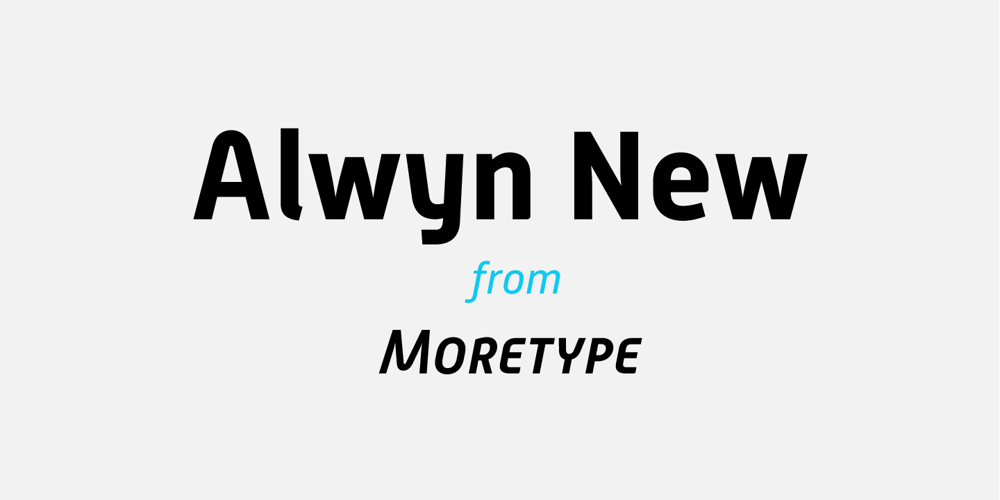
Alwyn New Font Family was designed by Chris Dickinson and published by moretype. Alwyn New contains 10 styles and family package options. Alwyn New is the refurbished version of Alwyn, originally released in 2005. Whilst the font has been completely re-drawn, re-spaced and re-kerned it retains its original, ‘squarish’, robush charm, and now has a wealth of features consistent with an Opentype font. Ranging from Thin to Bold, with Italics in all weights, Alwyn is a perfect choice for a variety of tasks ranging from text setting to signage systems.